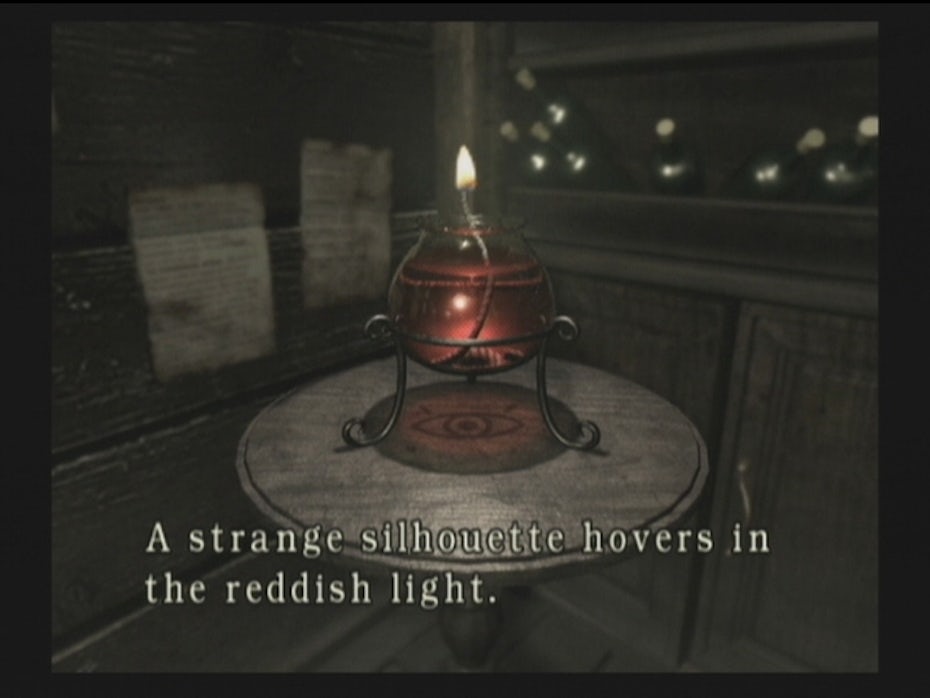
Fonts for games: how to win over players with top typography
There was a time when the most immersive video games on the market were nothing but words. These days, text adventures have gone by the wayside, but the importance that words play inhor games has not. They deliver crucial gameplay instructions, good and bad news, and occasionally breathtaking stories. And great fonts for games are how you make sure the shape lives up to the message.
When you consider all of the moving parts that make a video game possible—from environment art to character models to animation to game design—it can be easy to overlook the important role gaming fonts play. But in many ways they can make or break the immersive experience. Sometimes, they can become iconic, as in the blood red serifs of Dark Souls’ “You Died.” In many occasions, gaming fonts are best when they are not noticed at all.
Between the purpose of the text, the video game genre, and general branding, there is a lot that goes into font choice. There are also so many to choose from that it can be an overwhelming decision. With that in mind, we’re going to walk you through the most important considerations when choosing the best gaming fonts.
Guide to the best video game fonts
The categories of text in video games
In order to choose the best gaming font, you not only have to consider genre, tone and audience but the many roles that text plays in video games. Each of these roles may serve wildly different purposes, and the font style must be appropriate for the context. With that said, using a different font for every scenario is not realistic. From a design standpoint, this can lead to visual inconsistency, which breaks immersion (along with any sense of branding).
Usually, the fewer fonts you use the better: at minimum, you want to settle on a headline font, a subtitle font and a readable body copy font. The challenge then becomes choosing the ideal font for the various situations while keeping the number of fonts low and maintaining a general consistency across all the fonts used in the game. All the more reason to plan ahead.
Keep in mind that besides changing the font, you can also use the principles of visual hierarchy—such as applying a different weight, style, size, orientation, position, color and/or background—to create separation and degrees of importance.
Finally, if you haven’t already, make sure you brush up on the different types of fonts.
Without further ado, let’s jump into some of the most common scenarios in which you’ll need to choose a gaming font.
Gaming logos
A video game logo serves the purpose of branding, encapsulating the tone and genre of the game. In this way, the lettering style used in the logo often sets the standard for the other typefaces to follow. Although usually a logo typeface should be custom, many brands use an existing font as a basis for their wordmark. When choosing fonts for other categories, consider typefaces that will either harmonize with or contrast the logo font
In the past, video game logos were intensely stylized and memorable for all the wrong reasons (I present to the jury, Exhibit A…). These days, video games (and the gamers themselves) have grown up, and more logos have caught up to modern design standards—going for streamlined, minimalist aesthetics. After all, there’s a lot of impressive art going on in the games themselves, and the logos don’t have to try as hard anymore.
Simplified logos can also easily layer on effects like bevelling or metallic textures, making the logo look like it has come right out from the game’s world.
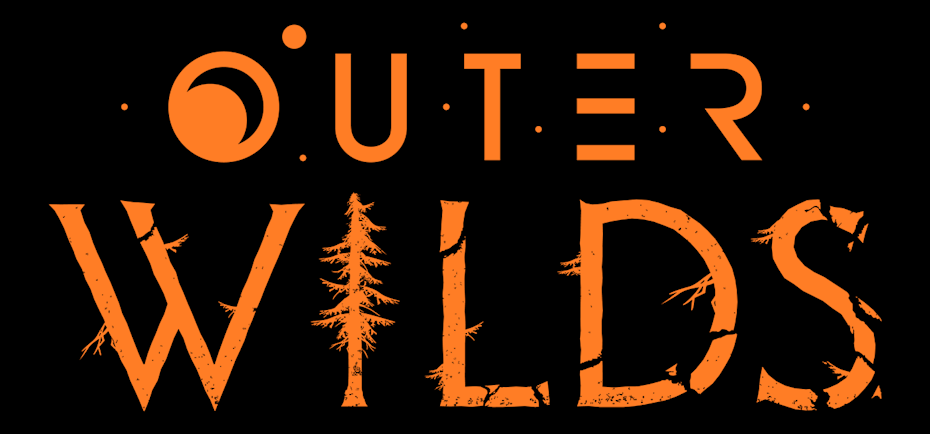
With all that said, it’s not as though more stylized logos are completely out-of-vogue. The logo for Outer Wilds (2019) not only contains two different font types, but two different design approaches: one word is sleek and futuristic and the other is organic and illustrative.
Regardless, the style just feels right for Outer Wilds. It encapsulates the duality of space travel and planetary exploration (namely the trees of Timber Hearth). Outer Wilds is also a game with plenty of goofy moments, from the unpredictable physics to your taped-together spaceship, and the mismatched logo fits that fun and weird vibe.
Persona 5 (2016), meanwhile, uses a bold, oblique sans serif for its logo font. The rest of the game’s text wildly contrasts this with zany, ransom note cutouts. Despite these differences, the white color and general thickness of the letters keeps us believing that these typography styles all belong in the same universe.
Title sequences and credits
Although—let’s face it—most players are not diligently reading the credits, the overall purpose of a credit sequence is to convey simple information: who worked on this game and what were their roles. To that end, it is common for credit sequences to emphasize readability (sans serifs are recommended for digital reading). There are also a few different contexts for credit sequences to keep in mind.
Opening credit sequence for Observation, by No Code
The opening title sequence, which is generally much shorter than the end credits, can be an opportunity for much more creativity—as pioneered in film by designers like the legendary Saul Bass. Some games, like Observation (2019), will include an artistic title sequence with theme music, not unlike prestige TV. This allows the font to be animated and more thematically relevant.
In Prey (2017), as the protagonist is taken on a fateful helicopter ride, the opening credits are displayed in-game like massive billboards interspersed along the vista.
Title sequence for Prey, via PoliticalAtheos / Arkane Studios
We can include in this category the titles of specific game environments that the player has entered. A particular trend in this arena has been for towering titles that take over the entire screen, as in Control (2019)—where the oppressive size of the text creates a daunting effect.
Alternatively, the Kingdom Hearts series creates a custom logo for each environment. The Dark Souls series, meanwhile, (a great study for repurposing the same font in various contexts) uses their standard serif to display environment names, with an audio cue instead serving up the ominous portent that accompanies entering a new area.
Gaming menus
Video game menus exist to give the player vital information about their character’s stats, items, level progression, objectives along with game customization options. This is where visual hierarchy and UX principles really come into play as there is a lot of competing data for the player to digest at once.
Often, headlines and body copy are the main font choices you have to make here. The headline can be more attention-grabbing whereas the body copy usually comes in the form of a paragraph. It is also perfectly fine to use the same font for the headline and body, as studio From Software does in their famous item descriptions, using positioning instead to differentiate between them. Additionally, in Sekiro (2019) they emphasize the headline with a background brush stroke.
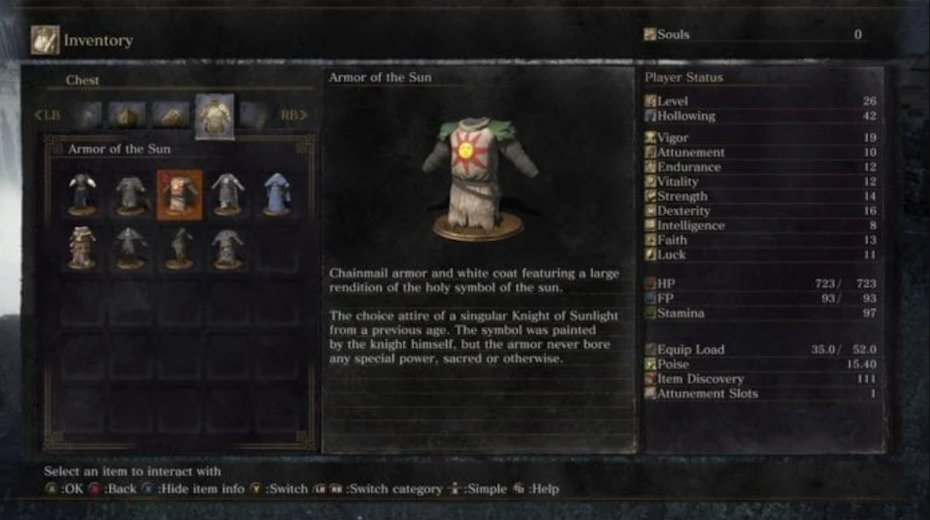
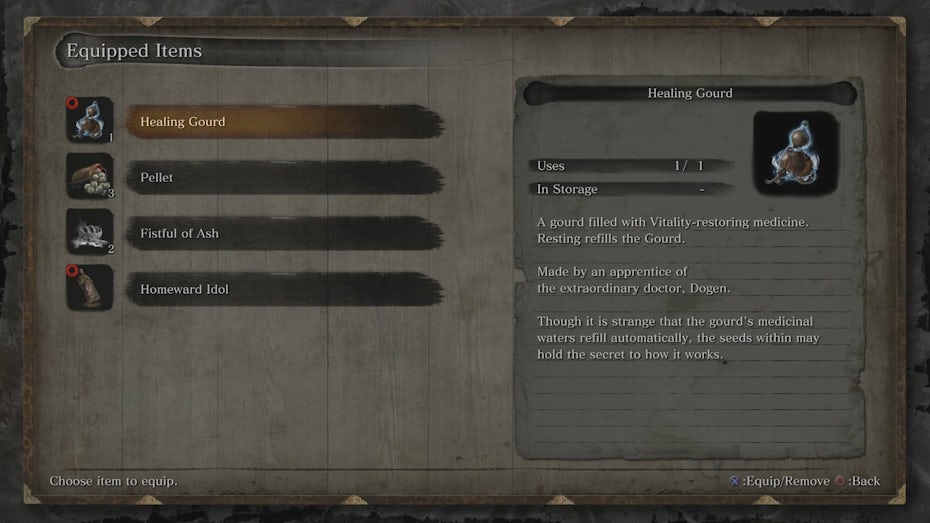
There are a few subsets of menu text that we’ll consider part of the same general family: title menu, tutorial, HUD, and results screen. These text scenarios serve the same purpose of delivering contextual information, but there are some subtle differences of purpose to consider as you make your font selections.
- The title screen menu is usually displayed with the logo and must fit directly in that context. The list of menu items is usually sparse (New Game, Load Game, etc), though this also might include a lobby or character select screen in multiplayer games. The purpose of this font here is to get the player excited to play the game, so designers are free to take some artistic license.
- Tutorial text usually interrupts early gameplay with rules or controls, often in some form of pop-up. Tutorial tips are also commonly repeated on loading screens after a player has died. As these are usually obtrusive and sometimes aggravating (though necessary), the font should aspire to be as straightforward and simple as possible.
- The HUD (Heads-Up Display) is the moment-to-moment information, such as the health bar and navigational tools, that are overlaid on the screen during gameplay. Fonts used in the HUD are interacting with the entire game world, which means they must be legible in a variety of lighting and color contexts. They also are typically paired with icons (such as waypoint markers and crosshairs), and the font and icon style should look like they belong together. As this has the potential to be the most immersion breaking (so much so that many triple A games reduce the HUD or eliminate it entirely) fonts have to accomplish the task of being useful without being distracting.
- Results screens show the player information regarding how well they have done after completing a mission, battle or level. The fonts here straddle the line between being informative and celebratory. Generally, you will use the same straightforward body text explaining the actual results with something more decorative headlining the screen.
As a final note, menus can sometimes be tied to the game narrative (or diegetic, which we’ll discuss later), imitating a character’s journal and their specific handwriting. This tends to work for simpler menus, such as Cuphead’s item store, so that you can focus on authenticity without too many informational variables that might confuse the player.
Dialogue and subtitles
Subtitle text used to be a regular feature of video games, as limitations in lip syncing always made understanding a character’s speech harder to follow. Nowadays, as big budget games become more realistic, it is starting to become less relevant.
Some gamers still prefer subtitles, and of course it remains an important accessibility feature. The latter should take priority when choosing a font, despite the temptation to make subtitle text unobtrusive. This means avoiding font styles that are too condensed or thin to be easily read.
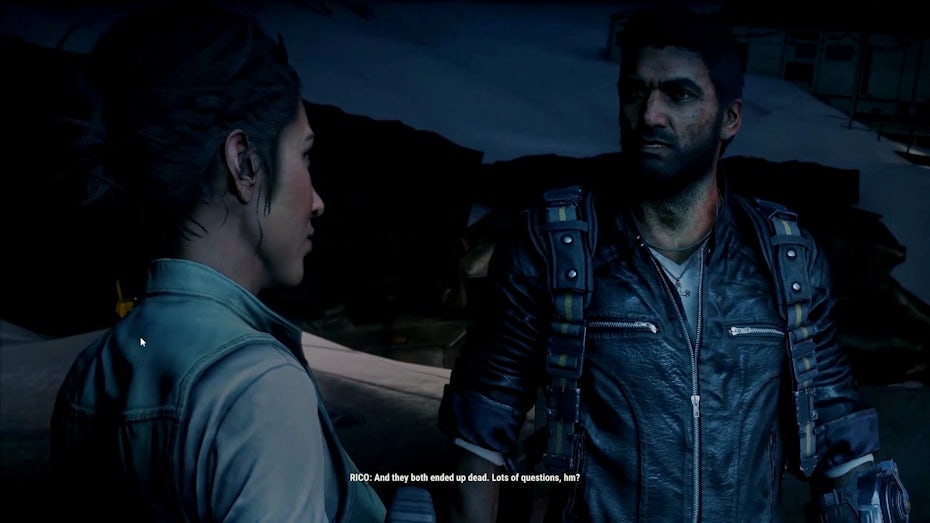
Dialogue boxes (as commonly found in JRPGs and Visual Novels) usually end up on the more decorative side—because why choose a framing box over plain subtitles if you’re not going to do something with it? Generally, the font should match the aesthetic of the text box.
Game over screens
In most video games, death is inevitable. Sometimes, it’s even part of the fun. Although it is the result of a player’s failure and the player is potentially feeling some frustration, a good game over screen can inspire joy instead of tears.
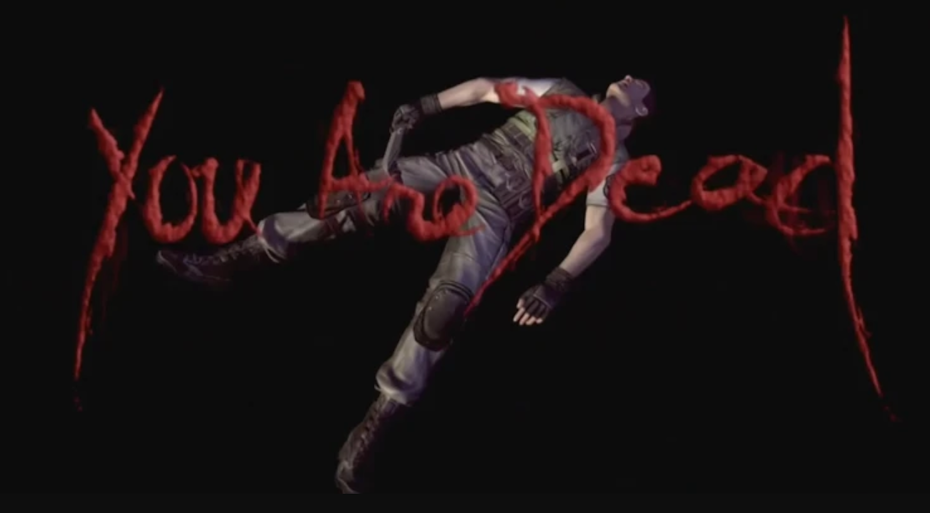
The text for a game over screen thus is an opportunity for a lot of, sometimes wild, creative license. This means that some form of hand lettering is preferable to a uniform font, and it’s one of those rare exceptions that it can be okay to stray away from the rest of the game’s fonts. At the same time, if the game is particularly difficult, the player will want to get back into it as quickly as possible. In this case, a lot of game over fanfare might only add to their frustration, and a simpler approach may be preferable.
Metal Gear Solid game over via Rukki580 / Konami
Diegetic text
Up until now, we’ve been talking exclusively about game text that is directed towards the player, existing outside of the game’s narrative. Depending on how realistic the game is, there are instances where text appears within the game world—such as signs, posters, letters, labels and book covers. This is called diegetic text, which is similar to diegetic sound in film.
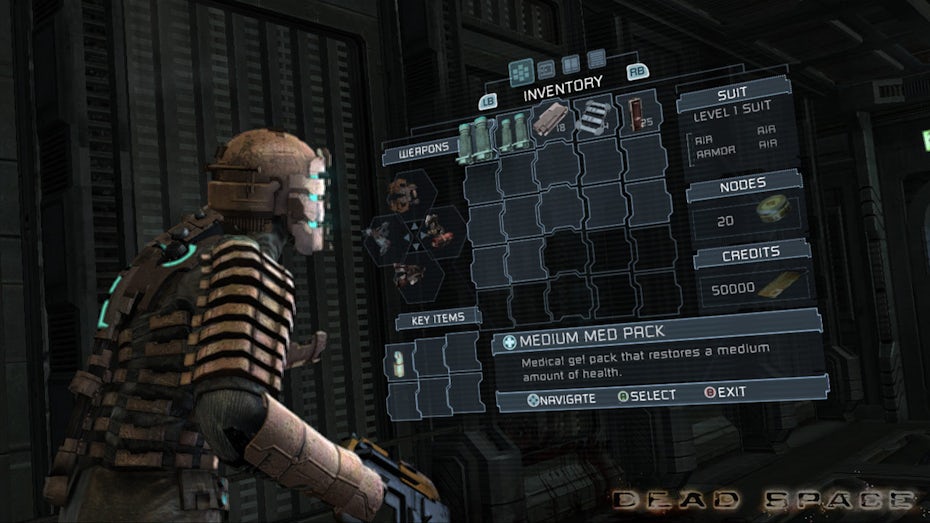
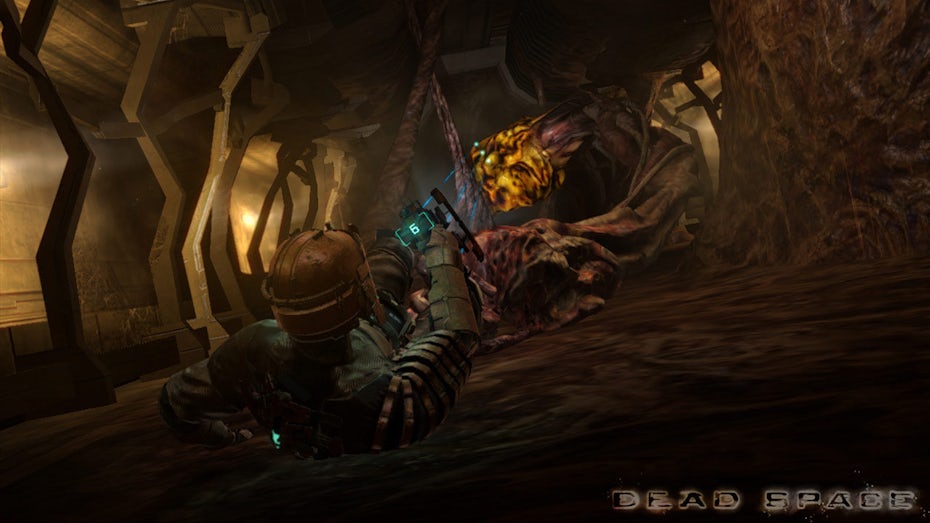
Sometimes, game designers use diegetic text to seamlessly incorporate elements of the HUD into the game world, such as the bullet counter displayed on the back of the gun in Dead Space (2008). All in all, the purpose of diegetic text is to be immersive, and choosing the correct font depends on doing research for the specific context you need the font for.
But a word about any handwriting in video games: whenever possible, it is best to have real people write out the text themselves. Handwriting is supposed to be unpredictable and personal, and fonts are by definition predetermined, even when they are attempting to mimic handwriting. It’s an added touch of authenticity that can go a long way.
Gaming fonts by genre
—
In addition to considering the purpose of the text and the nature of its information, the style of your gaming font is largely dependent on genre. Many standard video game genres (platformer, puzzle game, metroidvania) tend to refer to gameplay mechanics, but for the purposes of this article, we’ll consider genre from an aesthetic standpoint, in terms of setting and mood.
Though genres can be useful when discussing broad categories, they are inherently arbitrary. Your game may contain elements from multiple genres at once, and in that case you should factor in the overall tone for your font decisions.
Action/adventure game fonts
Action/adventure is a murky genre, but it tends to describe picaresque stories of far off places and daring heroics—big budget romps like Tomb Raider and Uncharted being the quintessential examples. Otherwise, fonts in this genre tend to go for a rugged, square look and weathering effects such as chipped or missing edges are common.
The purpose of these blocky sans serifs is to communicate strength and resilience: their rectilinear shapes are reminiscent of stones and bricks. These games also—let’s be honest—tend to feature fairly safe storylines in which the adventuring heroes survive a multitude of over-the-top action sequences, and the fonts likewise appear built to survive.
Examples of action/adventure gaming fonts
- Helvetica Now
- Uni Sans
- Futura
- Glober
- Modesto
- Aileron
- Bowlby One SC
- Bambusa Pro
Fantasy game fonts
Fantasy games are similar enough to action/adventure games, but they involve magic, quests and are often set in the ancient past. This makes classic, thin serifs an excellent choice to give a storybook or ancient scroll appearance. Alternatively, designers can use sans serifs with pre-digital typographical elements, such as the journal font in God of War (2017) that includes the classical lowercase “a” and “g” variants.
While it can be tempting to fully mimic ancient handwriting, be wary of gimmicky, try-hard, widely disliked typefaces like the Papyrus font used in (the otherwise phenomenal) Shadow of the Colossus (2005).
Examples of fantasy gaming fonts
- Luminari
- Giveny
- Bogart
- Cambria
- Neue Swift
- Warton
Sci-fi game fonts
Being set in the near or distant future, sci-fi games are all about taking what we already have and pushing it to extremes.
These days, minimalist, geometric sans serifs are standard for digital screens. Sci-fi games often take these fonts and exaggerate their hard angles or flattens their curves, illuminating them with the occasional neon glow. This has the effect of making the fonts feel almost entirely computer generated, which is how we often imagine everything to be in the future, for better or worse.
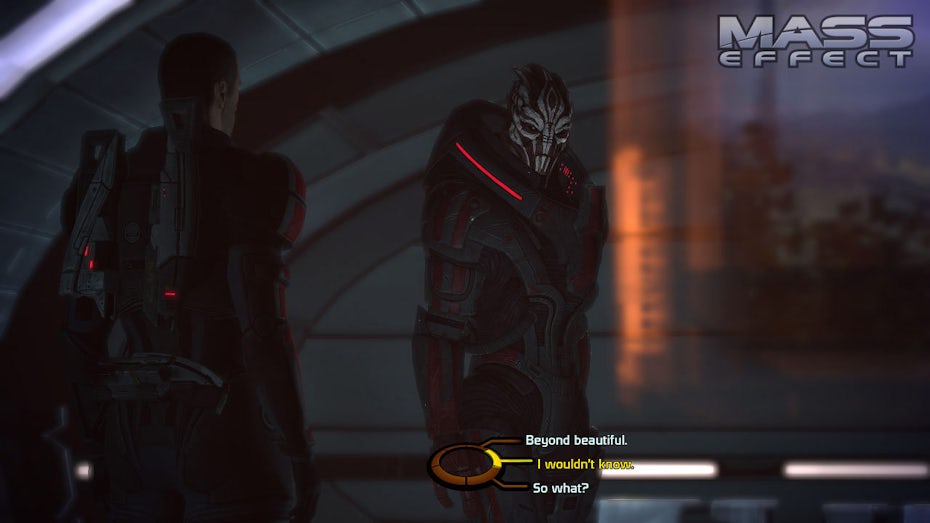
Examples of sci-fi gaming fonts
- Odibee Sans
- ITC Bauhaus
- Univers
- OCR-A
- Building
- Geomancy
- Devant Pro
- Aileron
Horror game fonts
The horror genre has a few diverse takes on font choice. Classic horror games like Resident Evil (1995) and Silent Hill (1998) are rooted in puzzle mechanics and text adventures, and they dole out limited information to the player about items in the environment using detailed images and sparse text.
Both also appeal to the idea of ancient evil (old mansions, an abandoned town), and they use formal, gothic serif fonts that evoke decayed grandeur. Many modern horror games, like Until Dawn (2015), use a similar font style in homage. Detention (2017) chooses a typewriter font for its ghost story, thematically conjuring the spirits of fonts gone by.
Horror games also tend to prioritize immersion. This often leads to fonts that are diegetic, as in the VHS camcorder typefaces in Outlast (2013), or fonts that feel like they could have come from the game world, as in the thin, childish handwriting in Little Nightmares (2016).
Examples of horror gaming fonts
- Bodoni
- Didot
- Garamond
- Baskerville
- Exo
- Museo Sans
- Docu
- Gafata STD
Military game fonts
In real life, stencil fonts are commonly associated with the military. Though this has now become a cliche, the reasoning behind the style is simple: stencils are no-nonsense and easily stamped on. In the heat of battle, militaries are typically looking for practicality over artistic flair in their text, and designers can consider this in their font choice: going for something straightforward.
Military games also share many qualities with the sci-fi genre in their UI. They are looking to show off gadgets and make them feel futuristic and cool. This is why a game like Battlefield V (2018) uses sleek and modern fonts in its HUD despite taking place during WWII.
Examples of military game fonts
- Frutiger
- Courier
- Dejavu Sans
- Proxima Nova
- Grafton
- TT Norms Pro
- Rufina Stencil
Kids/educational game fonts
The attention span of children is notoriously short, even—believe it or not—when they are playing video games. As such, kids’ games are often none too shy about being attention seeking, with everything from bright colors to exaggerated characters. In the realm of fonts, kids’ games typically go for decorative, cartoony styles such as Mario’s famous cut-out font.
Not only are the letterforms designed to be goofy in and of themselves, they are often randomly tilted or placed along different baselines, giving each letter a fun and bouncy look. Even if a game is not geared exclusively for kids, it can still take advantage of the fonts that go along with a cute, bubbly aesthetic, as in the bounce castle inspired font in Fall Guys (2020).
While educational games don’t have to be directed at young children, most are. Their goal is typically to make learning fun, and they tend to balance the cartooniness of kids’ games with the seriousness of a classroom.
Examples of kids gaming fonts
- Wonder Night
- Canilari
- Krona One
- FF Din
- Hypologic
- Restora
- Moniqa Typeface
Retro game fonts
When it comes to video games, nostalgia is a powerful thing. For this reason, many games (especially in the indie sphere) use aesthetic styles that appeal to the player’s longing for the past. It’s why pixel art (and pixel fonts) remains popular to this day despite the superior graphical power of modern gaming machines.
Retro gaming fonts often fit a diegetic purpose, mimicking the time period you wish to immerse the player in. Bioshock (2007) is, among other things, a veritable showcase of diegetic assets, from posters to music to signage. Art Deco and various forms of 30s era fonts abound.
Her Story (2015), meanwhile, takes place on a 90s computer interface and the font choice suits this purpose. No Code Studio’s creative director John McKellan uses a tone of old school computer typeface styles both for nostalgic and diegetic purposes.
Examples of retro gaming fonts
- Chicago
- VCR OSD Mono
- Italico
- FF Blur
- Metropolis Typeface
- Hazel Deco
Mobile game fonts
Being readily accessible, mobile games are typically aimed towards casual users—those riding the subway or waiting in line at the DMV. So while the font style often depends on some of the other genres we’ve discussed (mobile after all is more of a platform than a mood), there are some generalities to keep in mind.
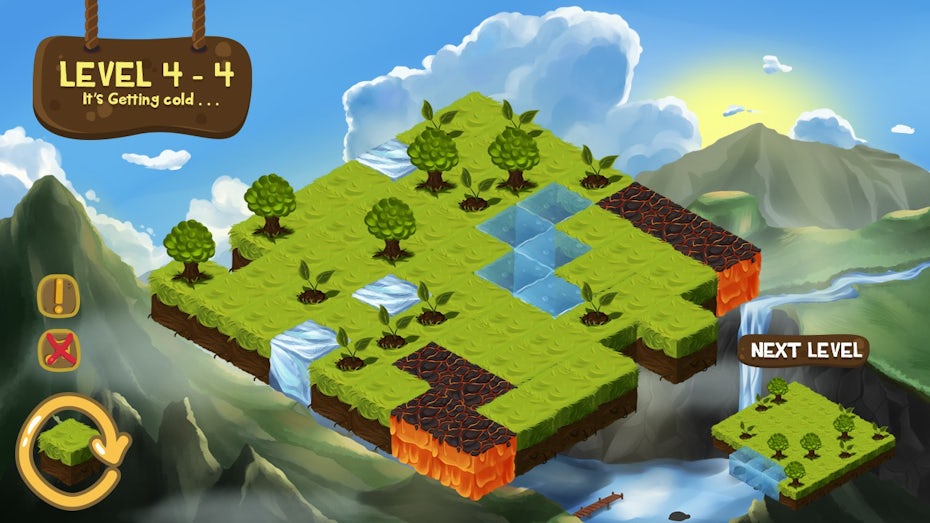
Mobile devices tend to prioritize icons over words, which means any fonts used should take their cue from the icon style (and visa versa). With that said, chunkier fonts tend to be popular since bigger, simpler text makes for easier reading on smaller screen sizes. Mobile games also seek to deliver quick wins, which means congratulatory screens or pop-ups are more common, leading to decorative font styles that will be read as fun and exciting.
Examples of mobile gaming fonts
- FF Avance
- Ostrich Sans
- Alfa Slab
- Reglo
- Skye
- Mattone
Get a flawless victory with the right gaming font
—
When there is so much else to worry about in making a video game functional—let alone profitable—it’s easy to think of font choice as an afterthought. But fonts are tools for expression, and they are just as powerful as any Gravity Gun or Buster Sword. They can also fail powerfully if you are not careful.
While this guide can give you a place to start, be sure to consider font choice and its effect on your player from the very beginning of the project. And always make sure you’re working with a UI designer who knows their fonts.